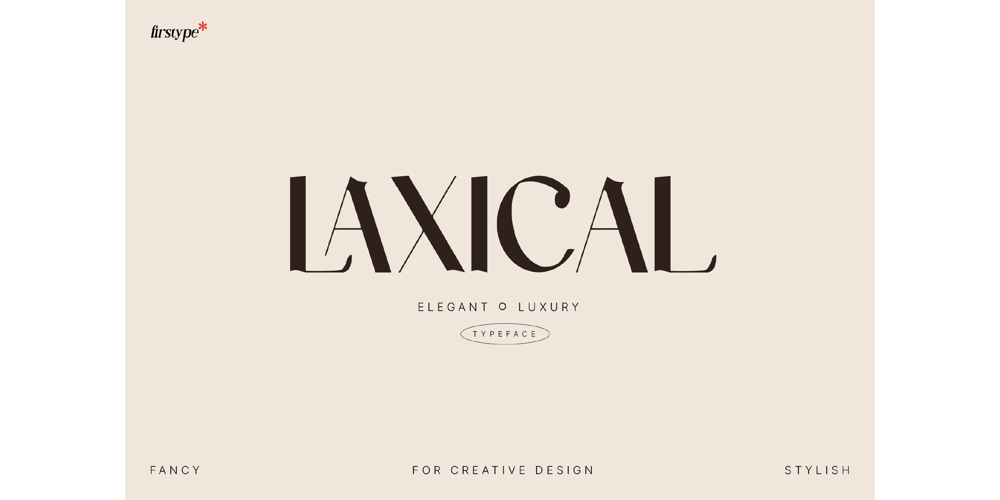
Laxical Serif Font Family
Laxical Serif Font Family was designed by Adrian Syauqi and published by Firstype Studio. Laxical Serif Font Family contains 2 styles and family package options. Introducing Laxical, an exquisite serif font that seamlessly marries timeless sophistication with contemporary flair. This font is the ideal choice for those seeking a classic yet modern typeface, especially for magazine layouts, eye-catching posters with large titles, and various design projects. Laxical is available in multiple licensing options to cater to your specific needs.Classic Elegance, Modern Appeal:Laxical boasts the enduring charm of a classic serif typeface, making it a reliable choice for projects that demand a touch of elegance. Its modern twist adds a fresh dimension, making it versatile and suitable for a wide range of design applications.Perfect for Magazines and Posters:Laxical’s distinguished letterforms make it a standout option for magazine layouts and attention-grabbing posters. Whether it’s headlines, subheadings, or body text, Laxical ensures your content exudes sophistication.Multiple Licensing Options:We understand that different projects have different licensing requirements. That’s why Laxical is available in various licensing options, including personal, commercial, and extended licenses. Choose the one that suits your needs best.Versatility at Its Core:Laxical’s adaptability knows no bounds. Its versatile character set and elegant letterforms make it an excellent choice for branding, packaging, invitations, and more. It effortlessly adds a touch of refinement to any design.Elevate Your Typography:With Laxical, you’re not just selecting a font; you’re elevating your typography game. Its harmonious balance between classic and contemporary aesthetics ensures that your designs leave a lasting impression.Choose Your License:Explore our licensing options and select the one that aligns with your project’s requirements. Whether you’re a designer, business owner, or creative enthusiast, Laxical has a license that suits you.Upgrade Your Designs with Laxical – Where Classic Meets Modern Sophistication.This description highlights the classic yet modern appeal of the “Laxical” serif font and its versatility across various design projects. It also emphasizes the availability of multiple licensing options to cater to different users.